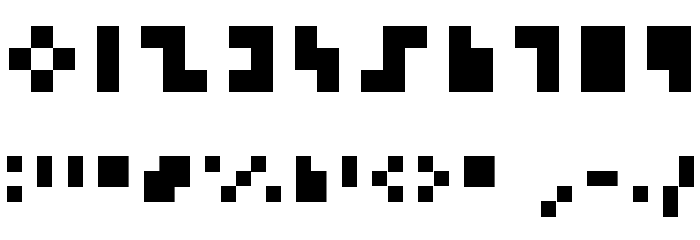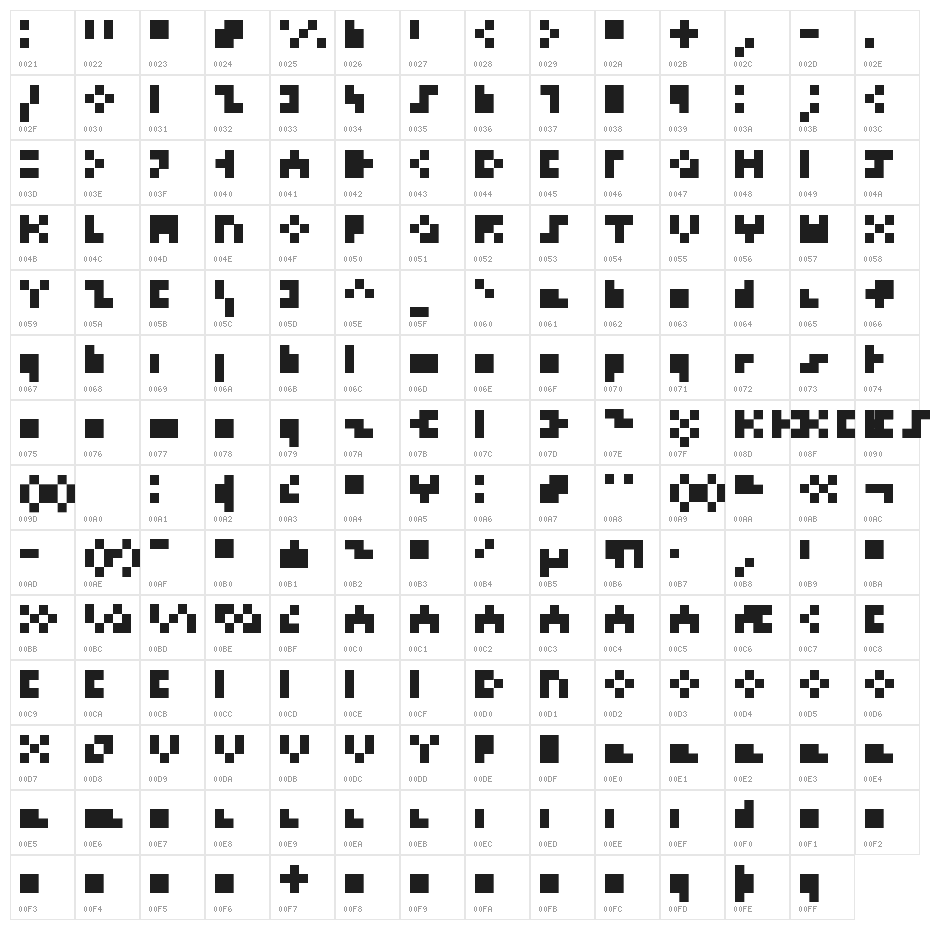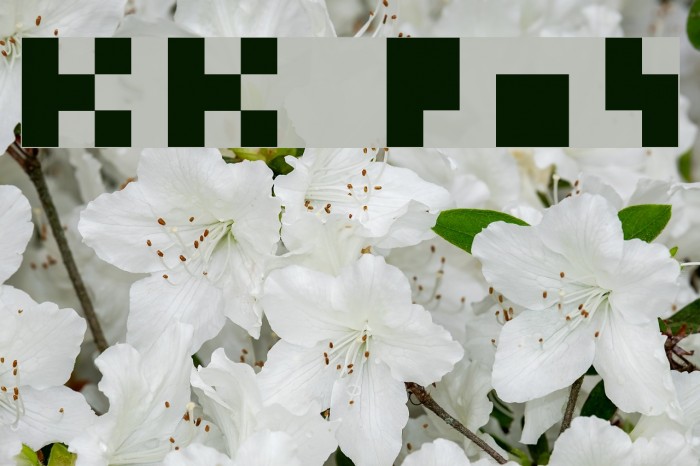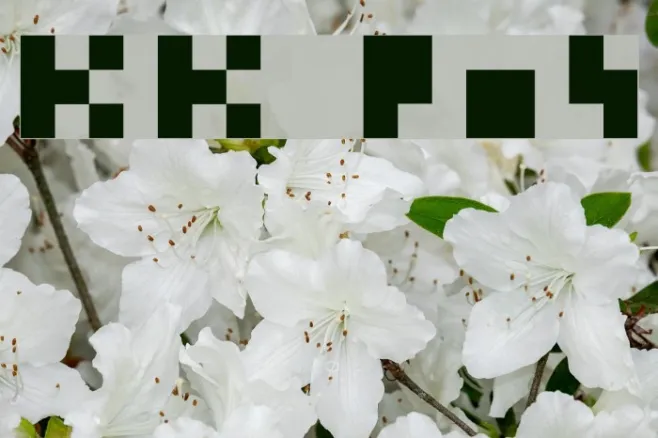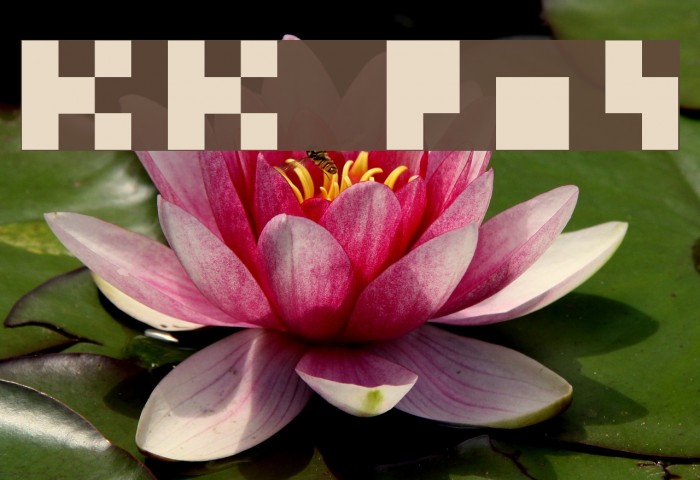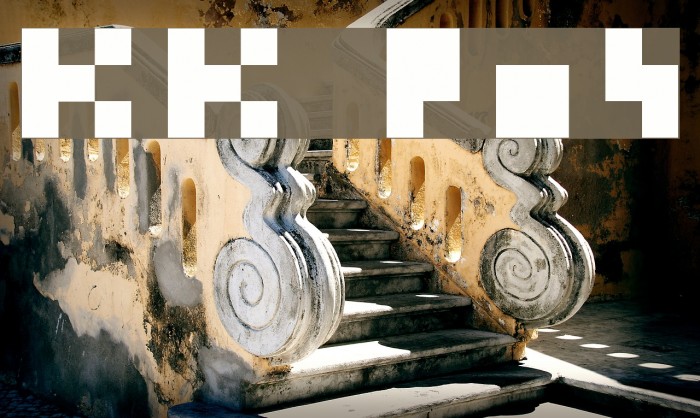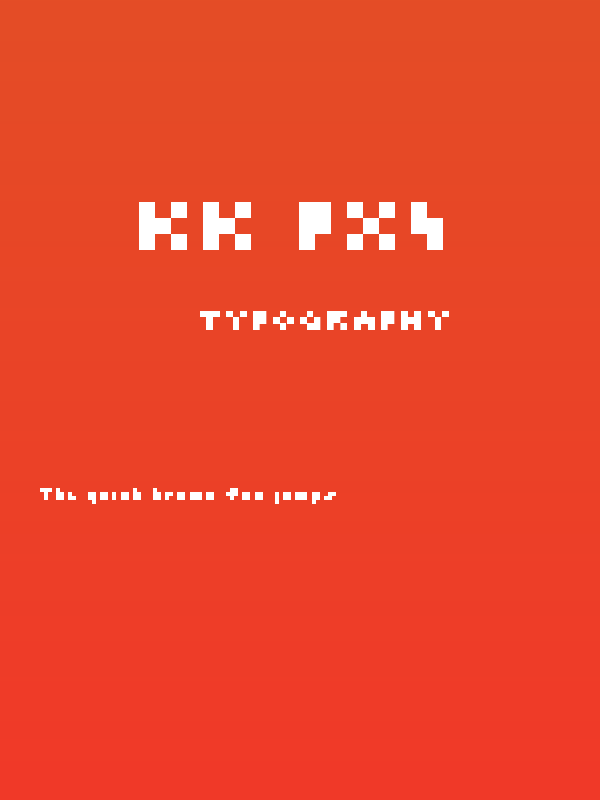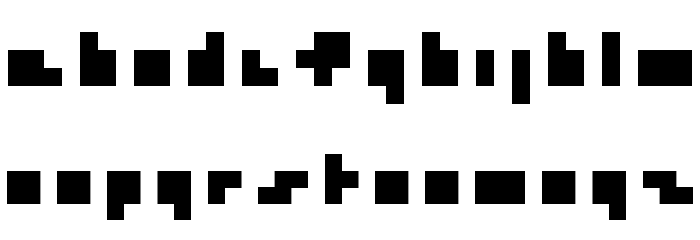
KK Px4 Font
KK Px4 Description
This font features a bold, pixelated design reminiscent of early digital displays and retro video games. Each character is constructed from a grid of squares, giving it a blocky and geometric appearance. The uniformity of the squares creates a consistent texture across all characters, enhancing its digital aesthetic. The uppercase and lowercase letters maintain a similar height, contributing to a cohesive look. Numbers and special characters follow the same pixelated style, ensuring visual harmony throughout. This font's distinct style makes it suitable for projects that aim to evoke nostalgia or a tech-inspired theme.
| Proposed Projects | Ideal for video game designs, tech-themed posters, retro digital displays, and any project seeking a nostalgic or digital look. |